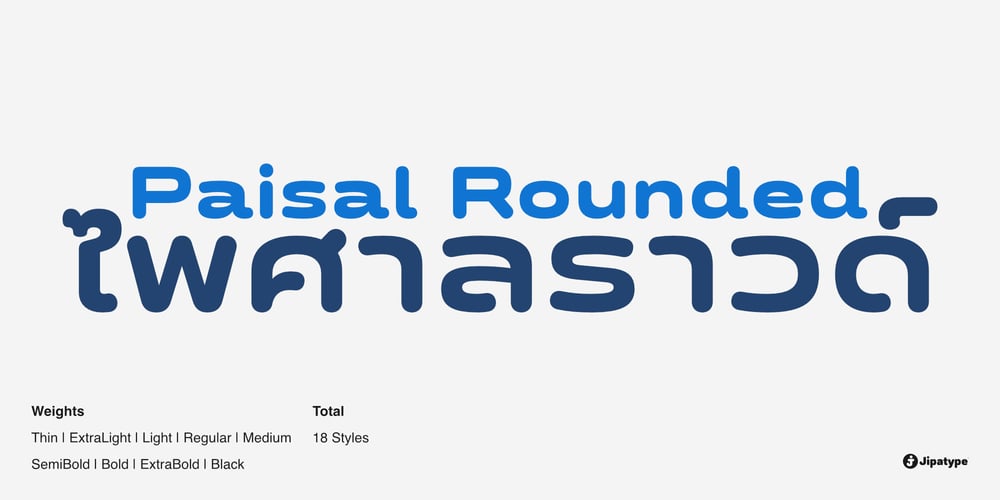
Paisal Rounded
Paisal Rounded font
Paisal Rounded Font Family was designed by Anupap Jaichumnan and published by Jipatype. Paisal Rounded contains 18 styles and family package options. The Paisal Rounded font is a sans-serif typeface family that was developed as an extension of the Paisal font, with added roundness to the characters. This results in a typeface that conveys softness and roundness. The font consists of 18 styles, ranging from the thin to the black weights. It supports both Latin 1 and Thai character sets. Paisal Rounded is suitable for various printed materials, both online and offline, and is ideal for design applications that aim to convey friendliness and gentleness.